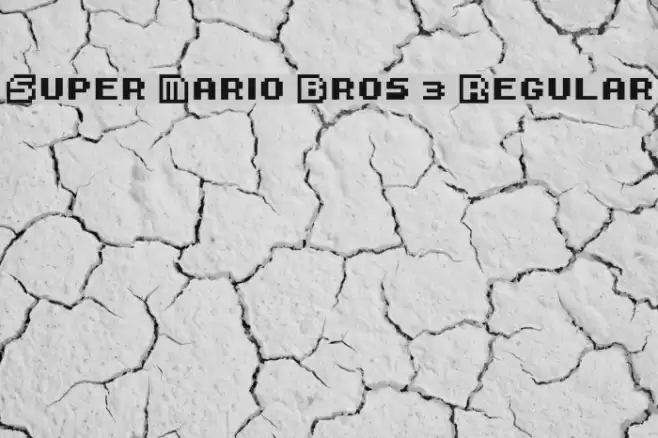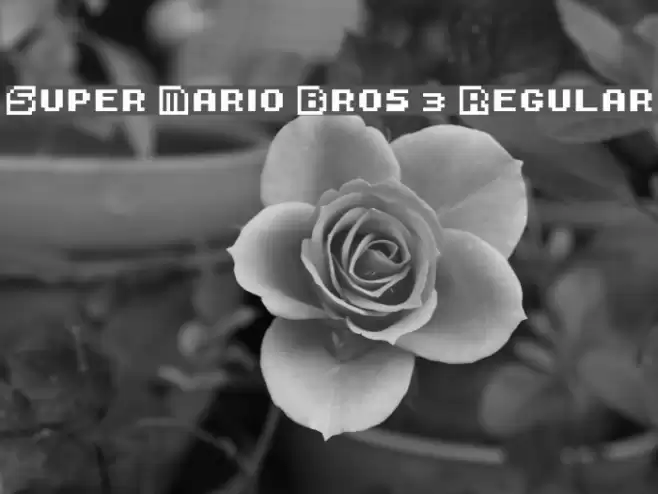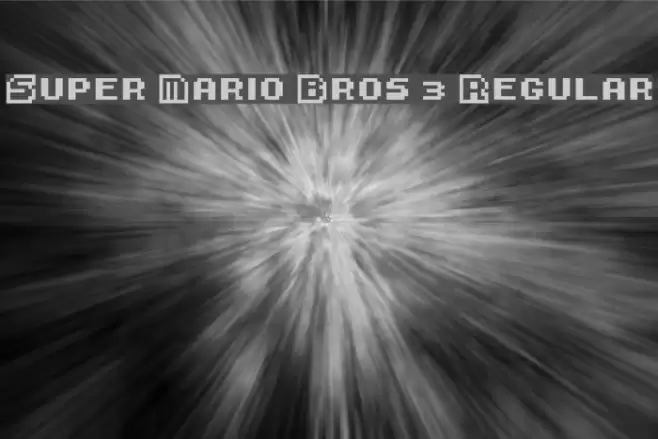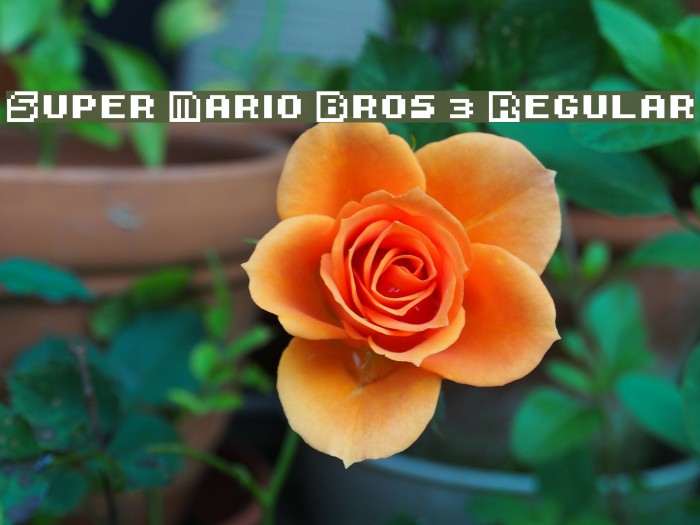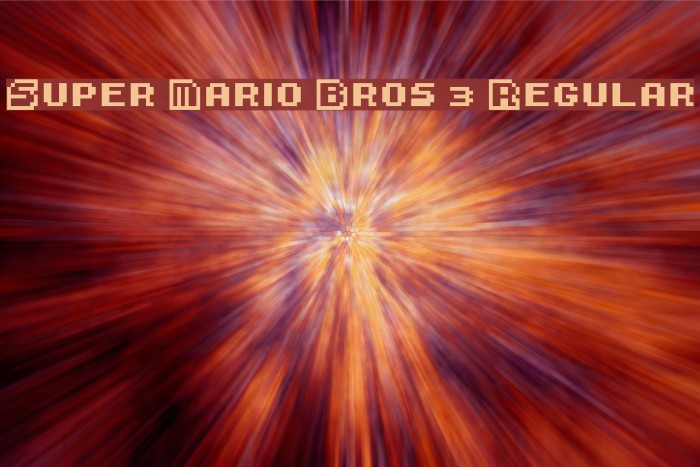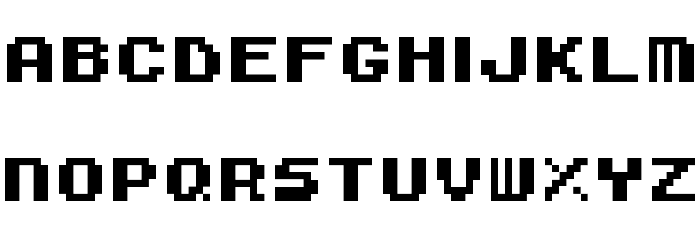
Super Mario Bros. 3 Regular Font
Super Mario Bros. 3 Regular Description
This font features a bold, pixelated style reminiscent of classic video game graphics. Each character is constructed with a blocky, grid-like appearance, emphasizing a retro aesthetic that is both nostalgic and playful. The uppercase and lowercase letters maintain a consistent height, contributing to a uniform look. Numbers and special characters follow the same pixelated design, ensuring visual coherence across all elements. The font's simplicity and geometric form make it highly legible, even at smaller sizes, while its distinctive style captures the essence of early digital typography.
- Proposed Projects: Ideal for retro-themed designs, video game projects, digital art, and nostalgic branding.
- Overall Style: Vintage